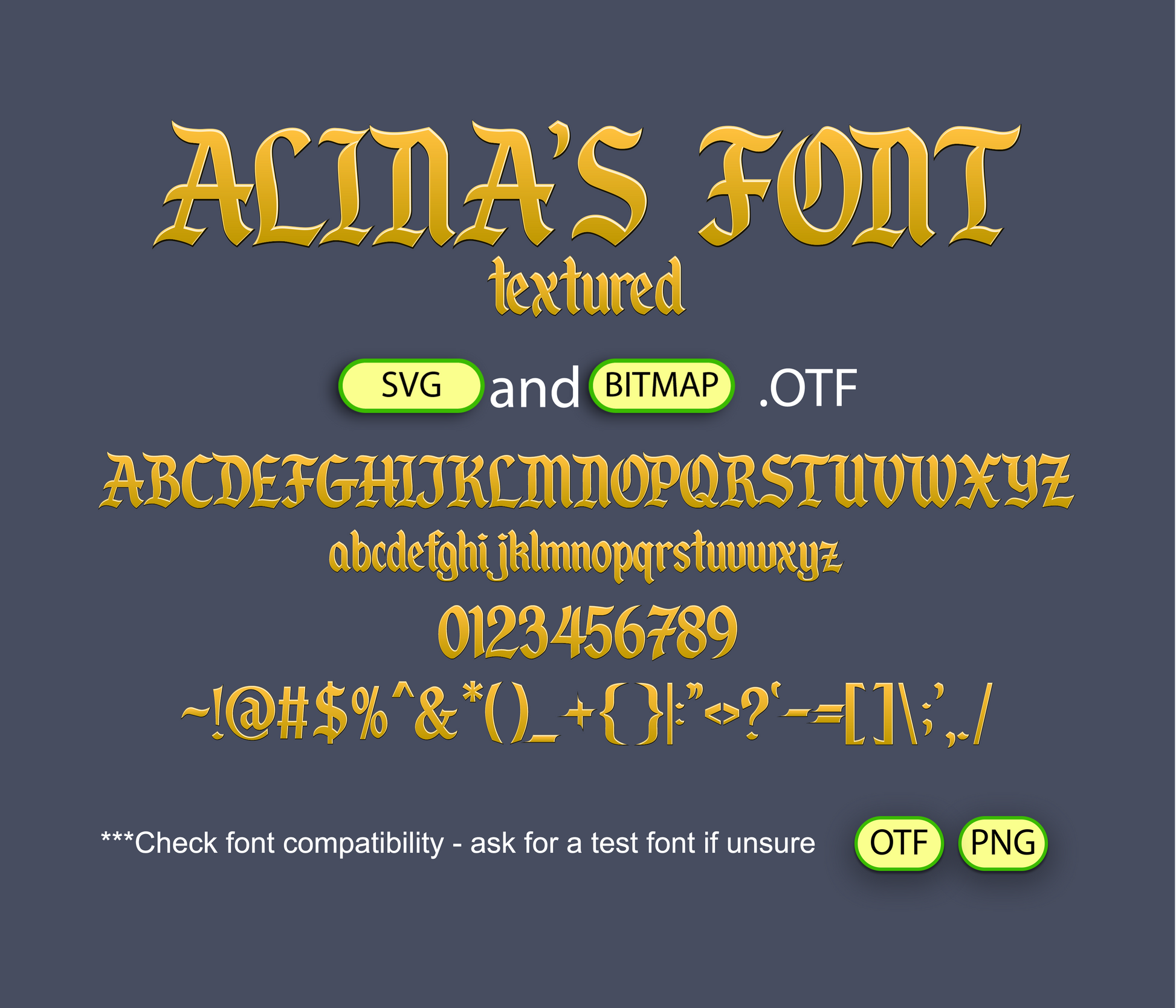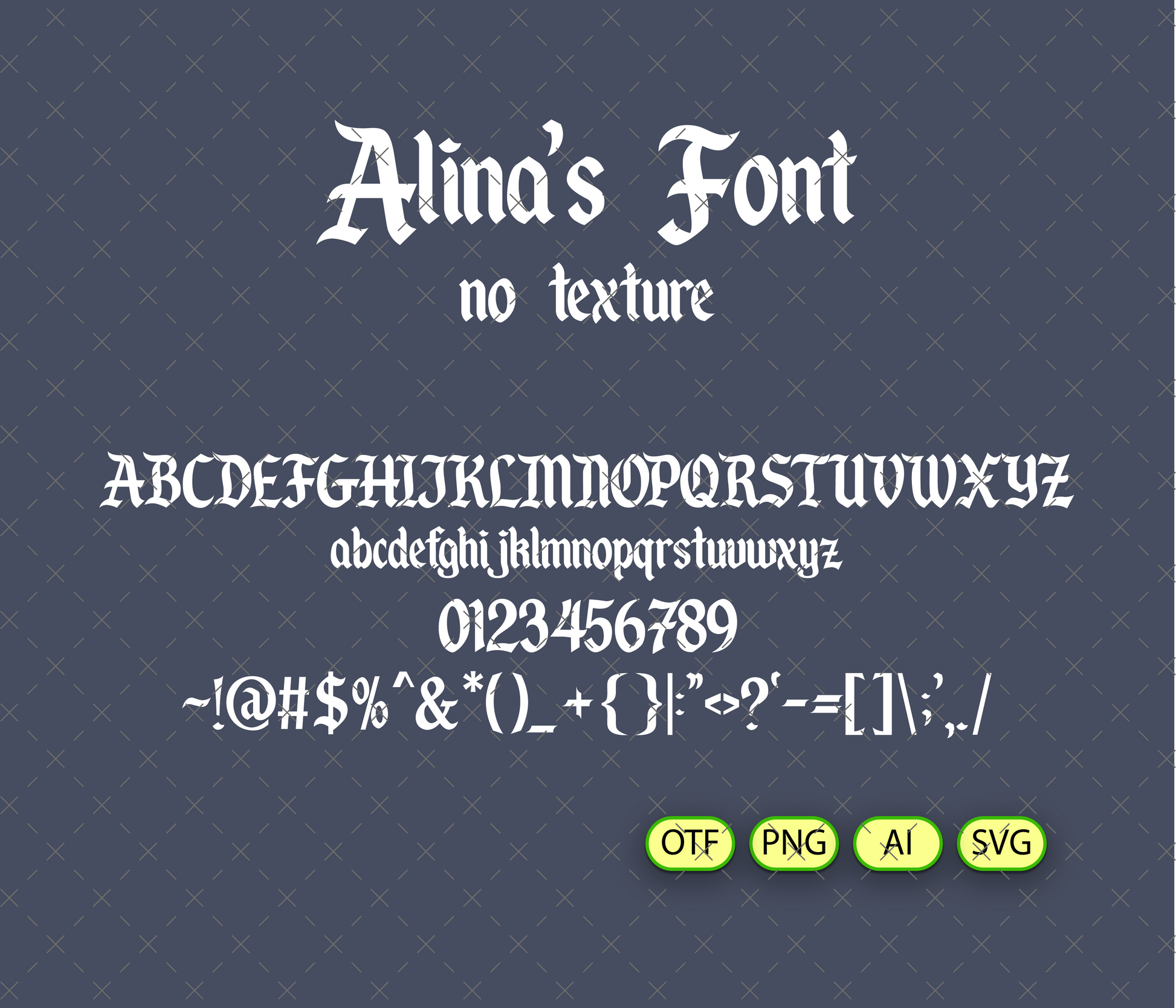
Enchanted Kingdom Font Textured
Step into the spellbinding world of fairytale wonder with our Enchanted Kingdom Font Textured, capturing the essence of magical castle dreams and timeless storybook enchantment. Perfect for theme park enthusiasts, fairytale celebration planners, children's media producers, and fantasy design specialists, this font brings the bold, whimsical character of legendary magical kingdom narratives to your projects. Create attention-grabbing invitations, commercial goods, or web content with the dazzling presence of enchanted realm storytelling.
Magical Typography for Fairytale Design & Enchanted Kingdom Projects
Our Enchanted Kingdom Font Textured features grand, lovingly crafted letterforms with shimmering storybook textures reflecting the world of beloved castle kingdoms and legendary fairground wonder.
- Event Promotions: Craft showstopping invitations, banners, and displays for fairytale-themed celebrations, magical kingdom fan gatherings, and enchanted party events that radiate the spirit of timeless storybook entertainment
- Merchandise Design: Perfect for apparel, wall prints, adhesive graphics, and collectibles that showcase the sparkling aesthetic of magical realm and castle kingdom themes
- Digital Media: Enchant websites, content channels, and social media platforms with whimsical header designs and imagery that express the wonder of legendary fairytale kingdoms
- Creative Content: Add signature magic to fan illustrations, character artwork, and imaginative projects inspired by enchanted castle chronicles and storybook adventure tales
- Personal Projects: Sprinkle fairytale vitality into memory albums, handcrafted items, and living space decorations inspired by the world of beloved magical kingdom characters
Our font pays tribute to the world of fairytale castle wonder and generation-spanning magical kingdom culture, empowering your projects with its bold and enchanting character. Whether crafting celebration materials, designing whimsical products, or adding a storybook touch to personal projects, this font communicates the timeless essence of enchanted kingdom magic. Ready to sprinkle fairytale wonder into your creations? This font is your key to attention-grabbing, impactful design.